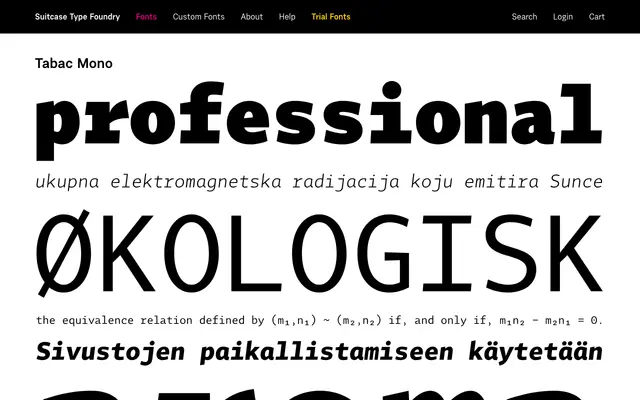
A monospaced member of the Tabac type system from Suitcase Type Foundry, designed for use alongside the broader Tabac family of serif, sans and slab companions.
Part of the extensive Tabac system, which spans sans, slab, micro and glam variants, the Mono brings a fixed-width option to an already well-developed type family. Its inclusion alongside optical-size-specific cuts like Tabac Micro suggests the system is intended for demanding editorial and information design contexts. Specific weights, italics and language coverage are not detailed on the page.
Listed under the Tabac family alongside serif, sans and slab variants; the Mono designation confirms a monospaced design, consistent with the technical/coding mono subcategory.